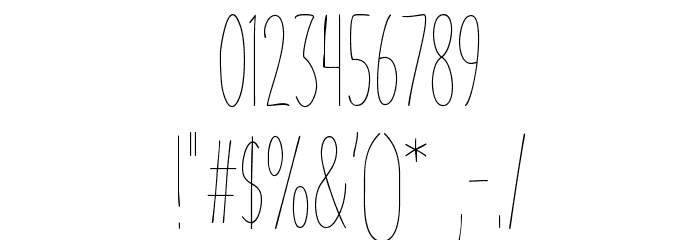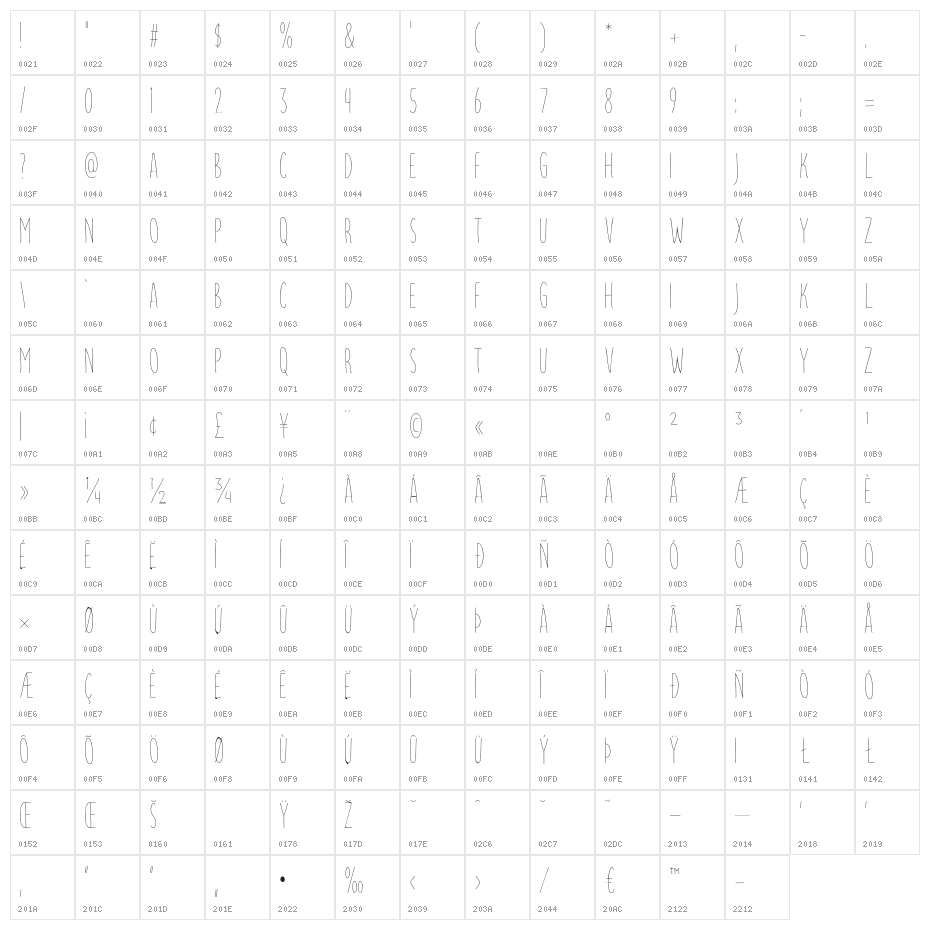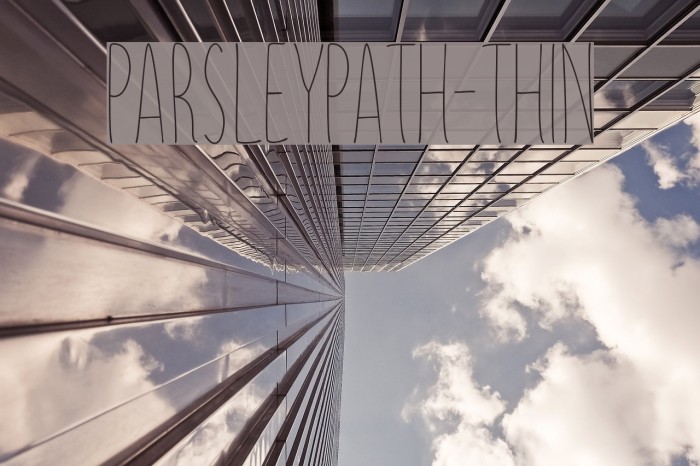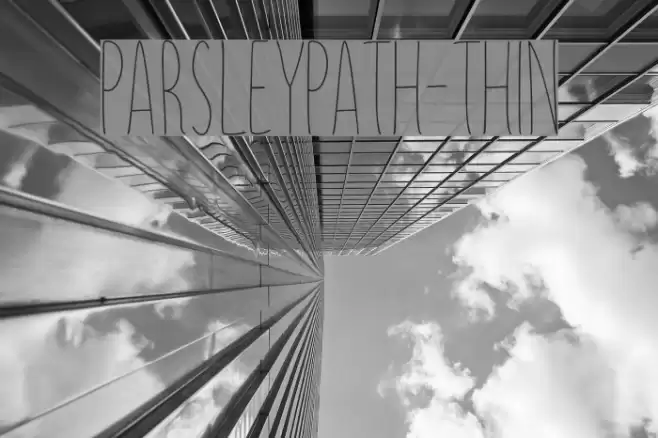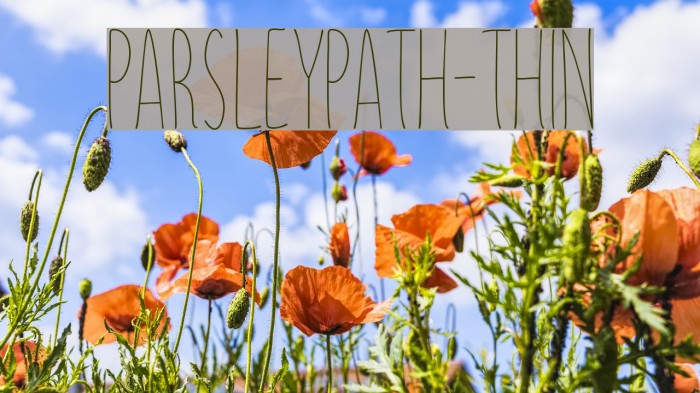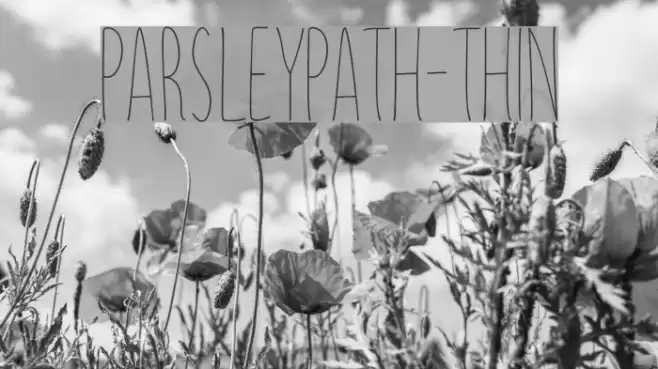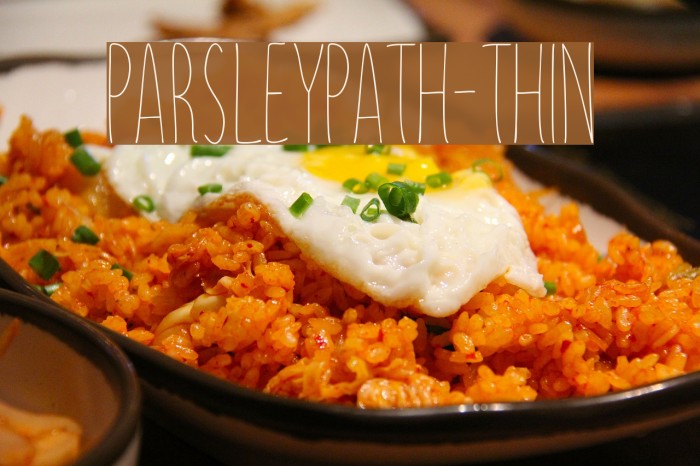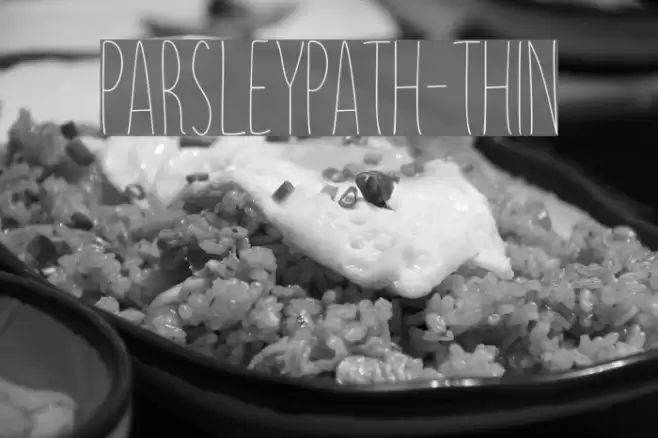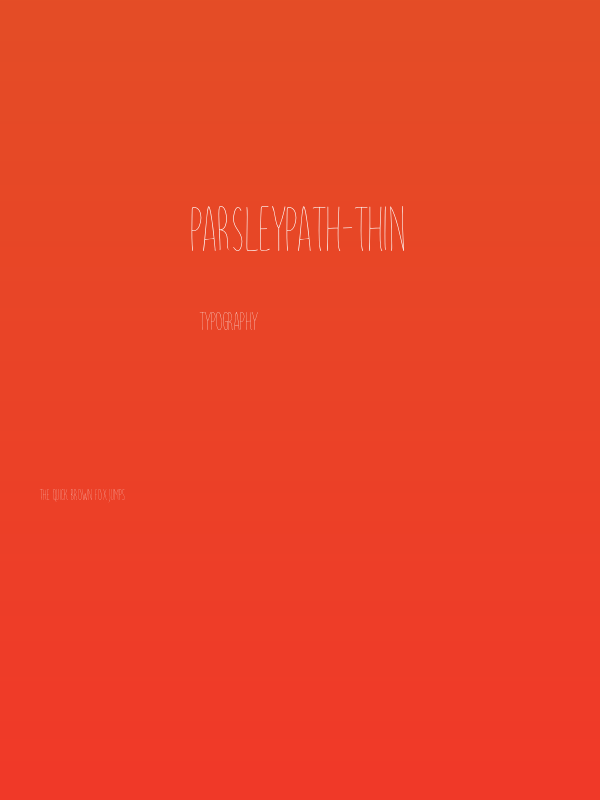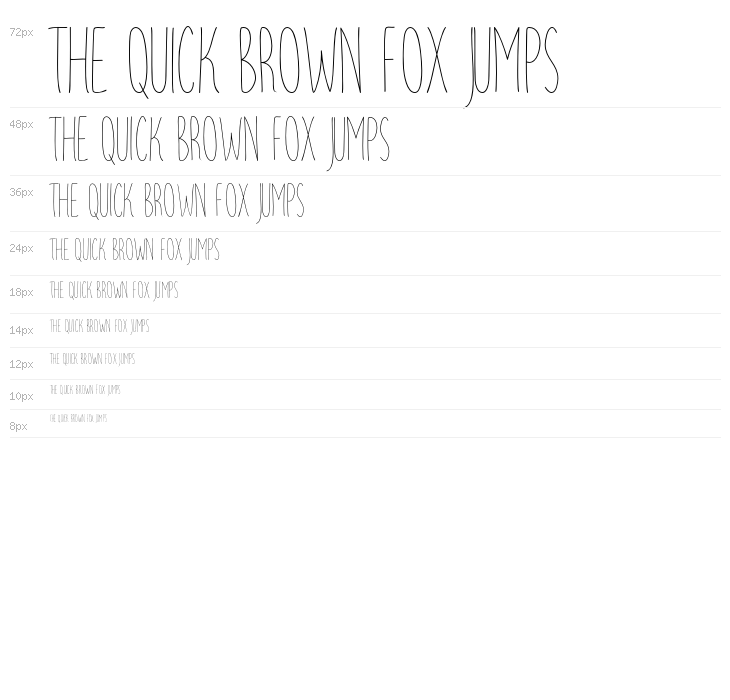
ParsleyPath-Thin Font
ParsleyPath-Thin Description
This font features a delicate and elongated design, characterized by its thin, elegant strokes. The letters are tall and narrow, giving it a refined and sophisticated appearance. The uppercase and lowercase characters maintain a consistent style, with a slight whimsical touch in their curves. The numerals are similarly slender, complementing the overall aesthetic. Special characters are crafted with the same attention to detail, ensuring a cohesive look across all glyphs. This font's airy and graceful nature makes it suitable for projects that require a touch of elegance and modernity.
| Proposed Projects | Ideal for wedding invitations, fashion branding, elegant posters, and minimalist design projects. |